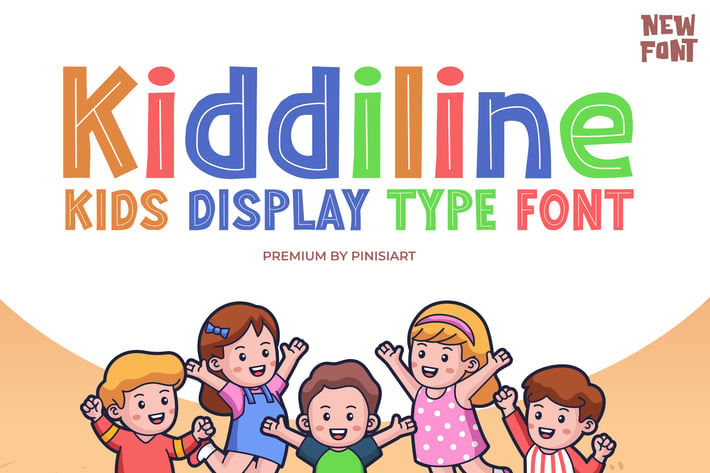
Kiddiline - Kids Font
Cute and friendly, with playful attitude. That's what Kiddiline will bring to your current project.
Looking cute with that inline inside the bold letters.
Suit perfectly for imaginary children books market, online games, stationary, school supplies font, poster, movie title, youtube covers, youtube thumbnails, social media page covers and so on...